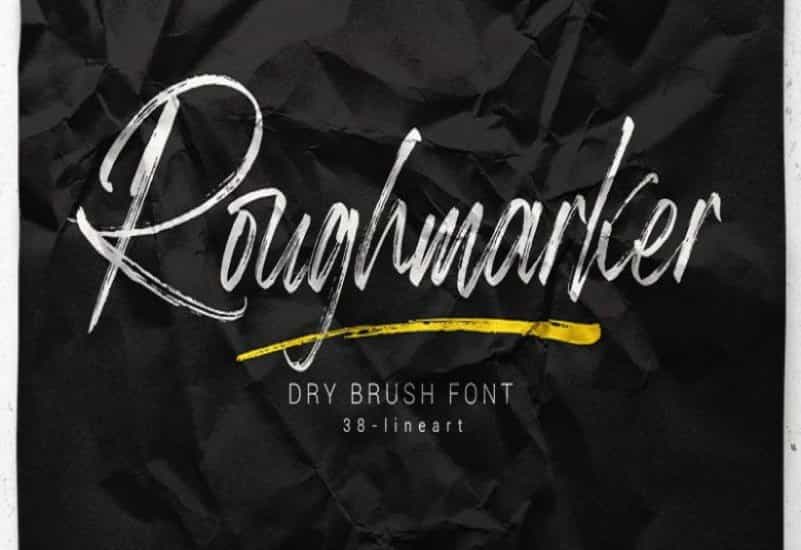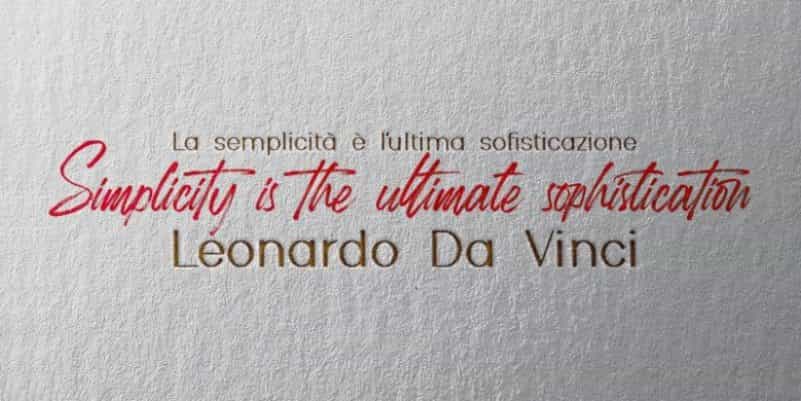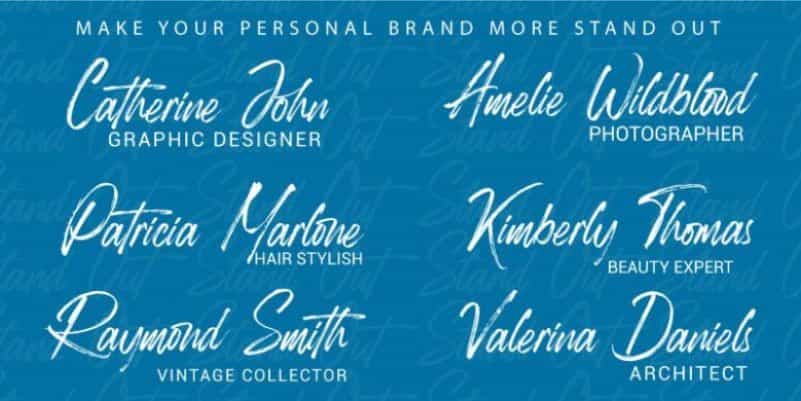
Roughmarker Brush Font is composed of two handwritten scripts, a slant (regular) version and an upright one. This font is perfect for the brands of today, especially those that do with fashion, urban style businesses, websites related to trends in architecture or cosmetics and also energetic lifestyle themes. The use of the beautiful typography in quotes writing gives it a premium look.